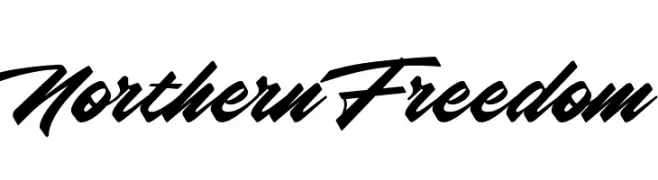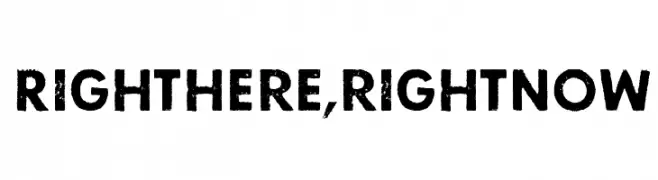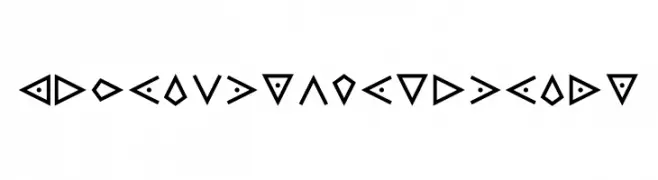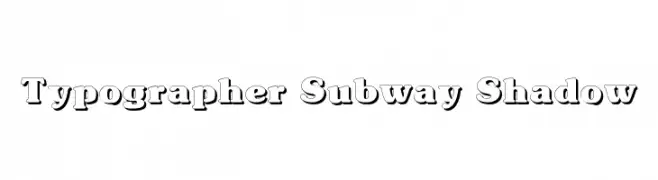
A bold, impactful font with thick strokes and strong presence.
A bold, shadowed font with a three-dimensional effect, ideal for impactful designs.
A bold, distressed font with a vintage, textured appearance.
A bold, distressed font with a rugged, weathered appearance.
A bold serif font with strong, thick strokes and classic design elements.
A playful, hand-drawn font with bold, irregular strokes and a whimsical style.
A cryptic, geometric font with an ancient, mysterious aesthetic.
A playful, bold font with rounded, bubbly characters ideal for cheerful designs.